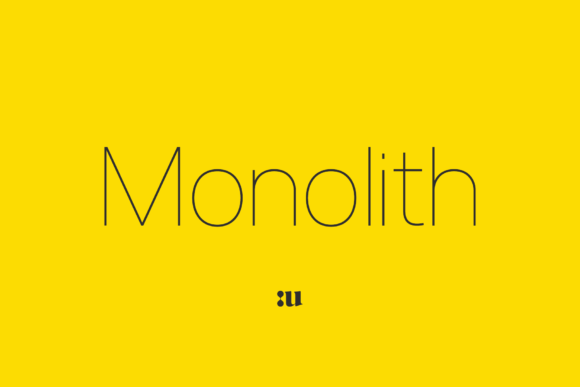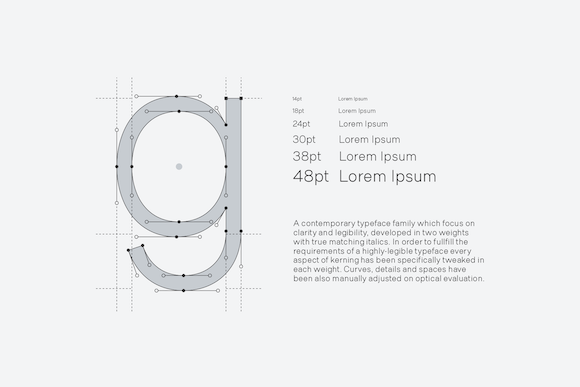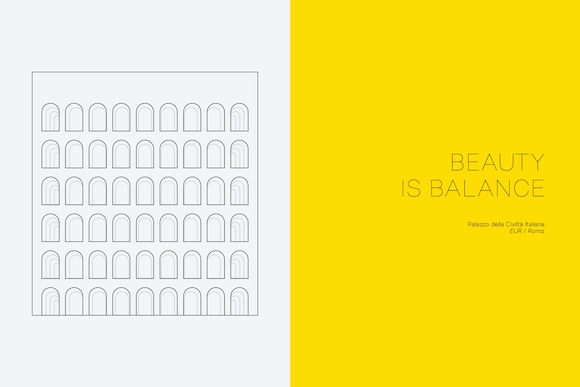
Monolith Font: Unique Minimalist Sans Serif for Modern Logo Design
About the Monolith Font
Elevate your designs with Monolith Font, a font that combines sophistication with readability. Monolith is a contemporary and light sans serif font with an incredibly unique approach to lettering. It will take any design project to the next level.
Monolith’s clean lines and modern feel make it ideal for headlines, logos, and short-form text in branding projects and posters. Its distinctive letterforms command attention, making it perfect for impactful statements. However, its light weight and unique letter spacing aren’t suited for body copy or UI elements requiring high readability.
For a sophisticated pairing, consider using a classic serif like Garamond or a geometric sans-serif like Futura. These fonts provide a complementary level of formality, balancing Monolith’s contemporary edge. For a more playful approach, a rounded sans-serif like Lato could create a nice contrast.
Monolith projects a confident, modern personality. It’s best suited for brands seeking a sleek, minimalist aesthetic with a touch of boldness. Avoid using it where legibility is paramount or a softer, more approachable feel is desired.